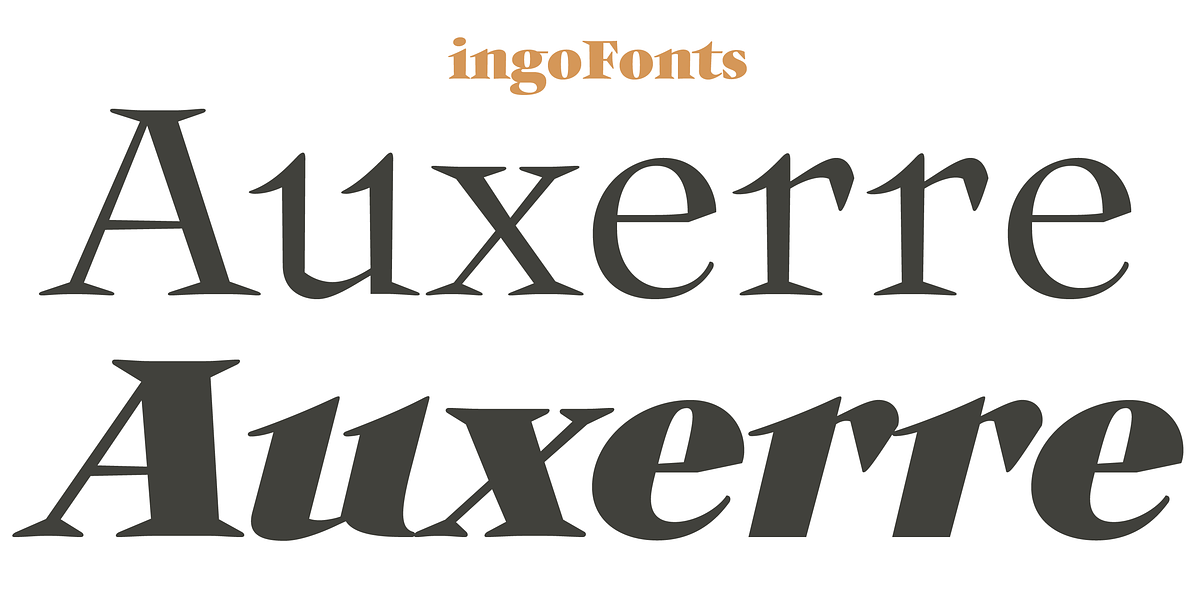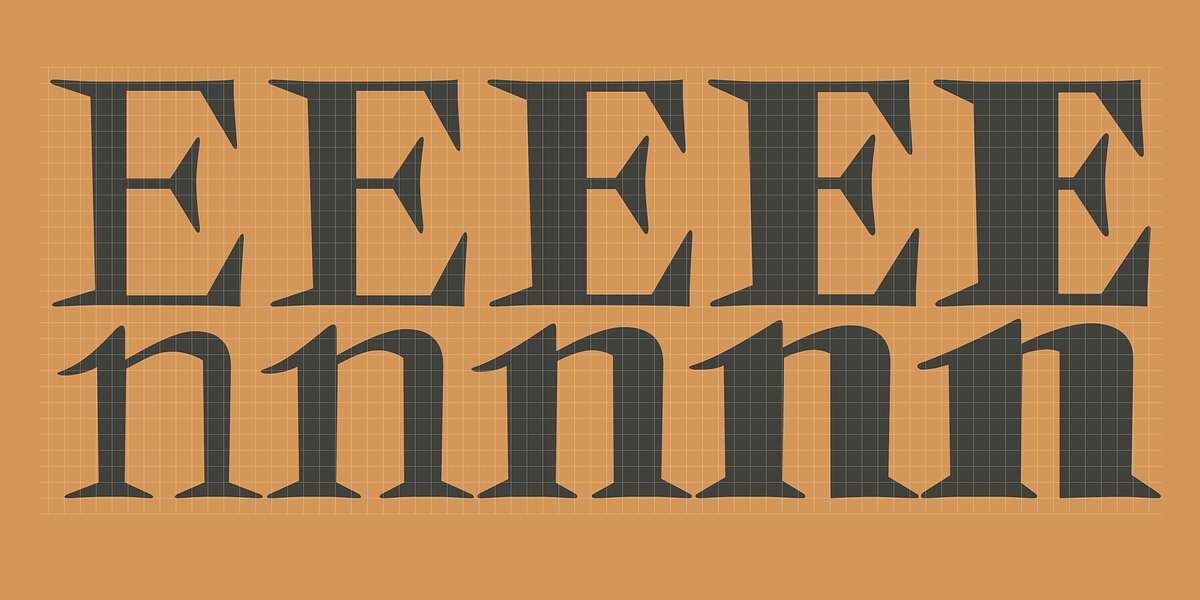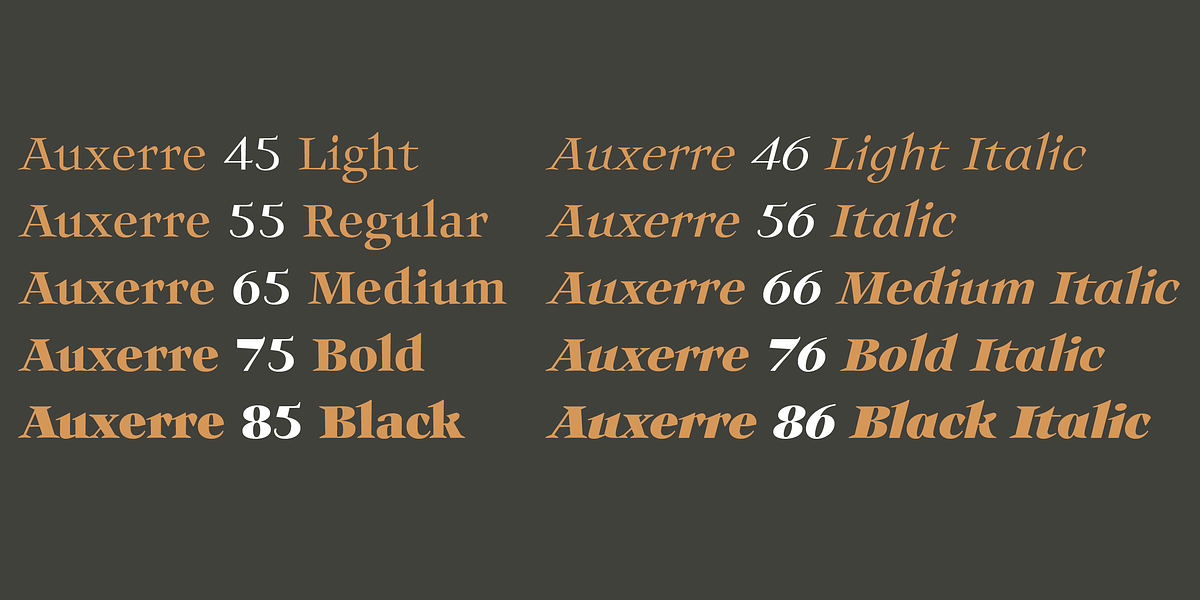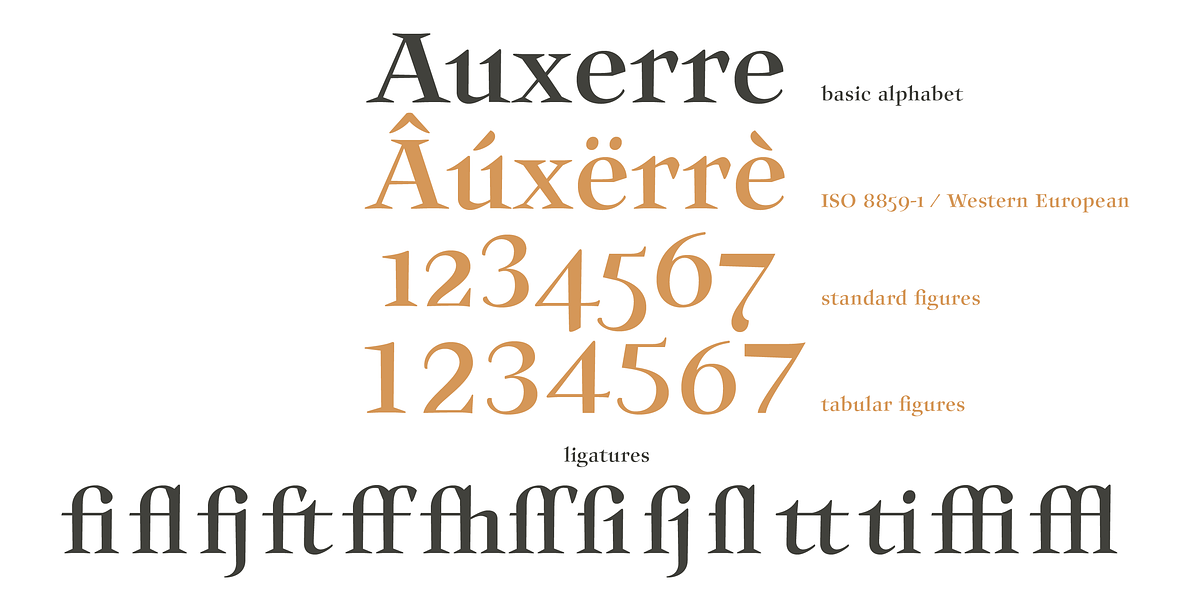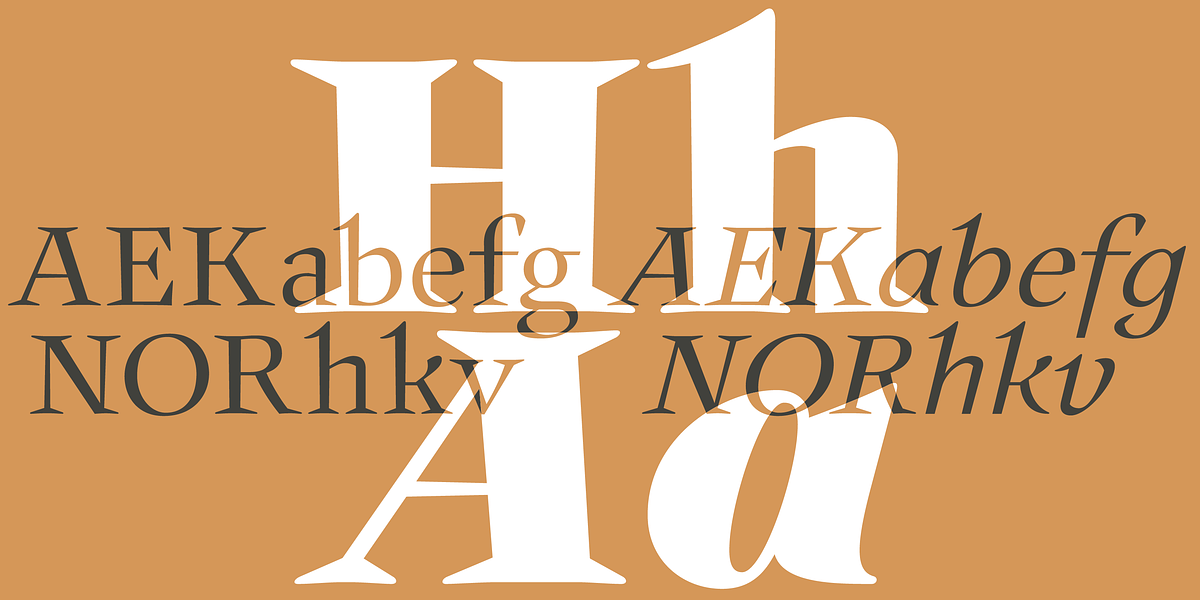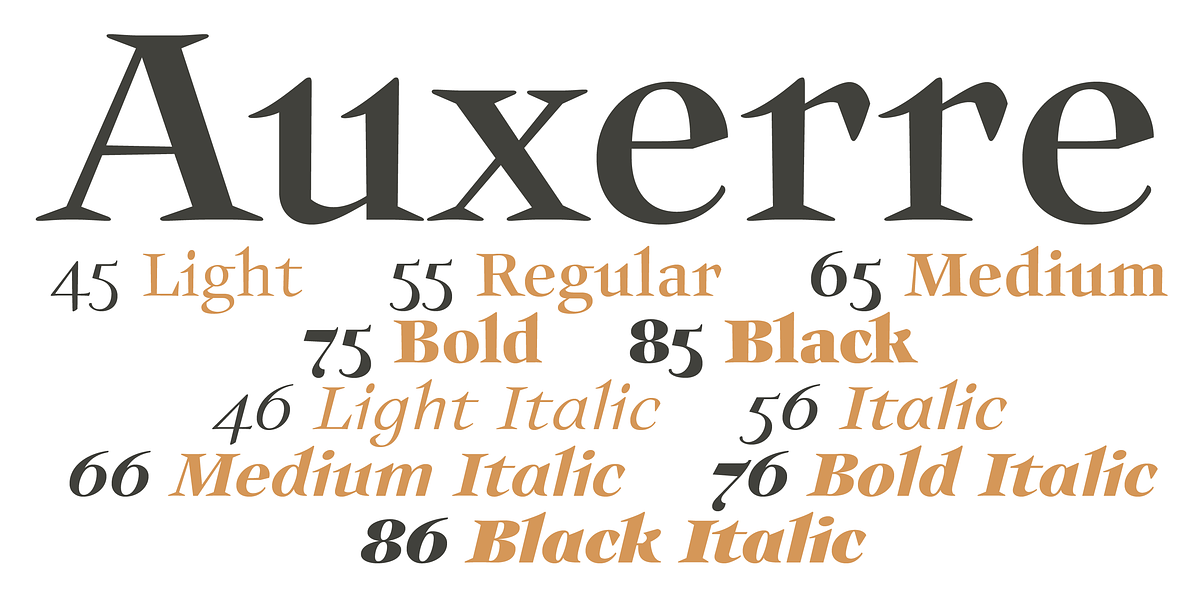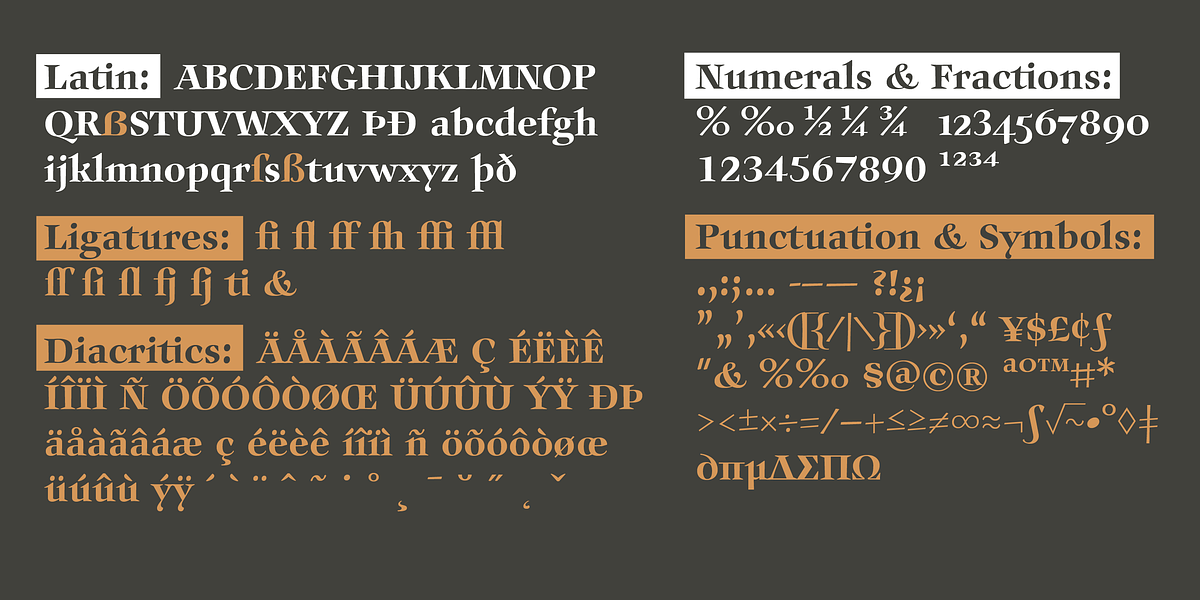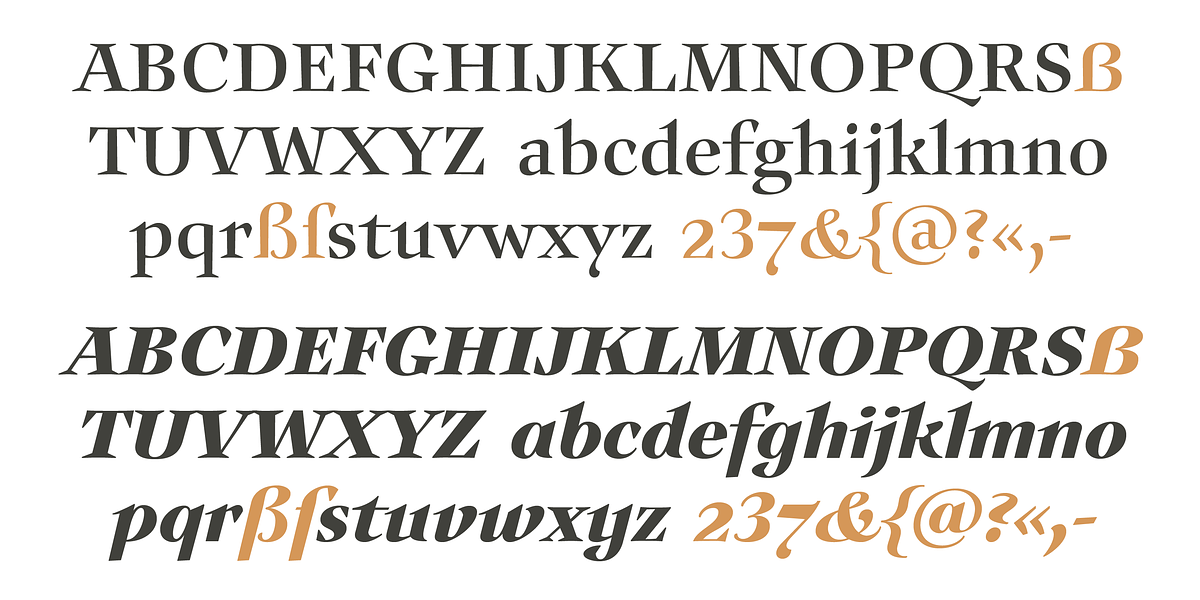
Auxerre
Auxerre is a serif typeface characterized by its distinctive triangular serifs. Its design evokes the elegant typography popular in 18th-century France, drawing inspiration from the Baroque style prevalent during that era. The font's historical roots are evident in its refined forms and balanced proportions. While Auxerre shares similarities with later advertising scripts like Etienne, it stands out as a unique and sophisticated typeface suitable for a variety of applications requiring a touch of classical elegance.